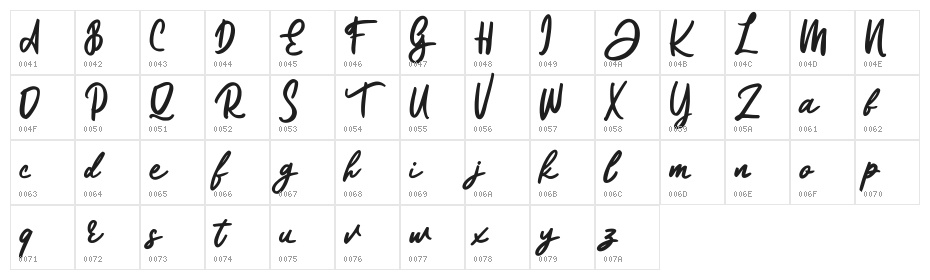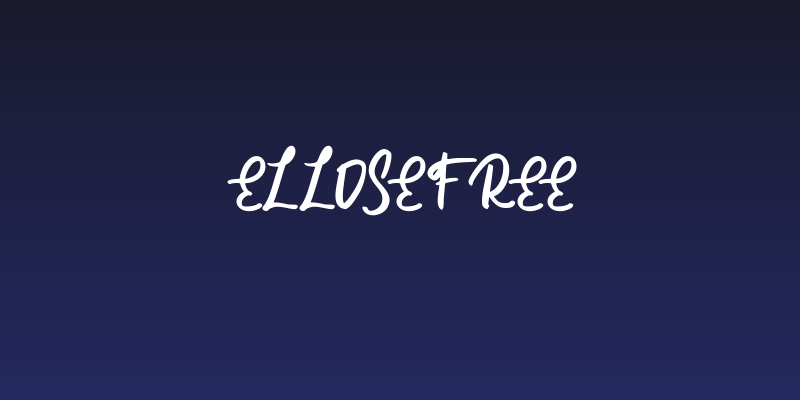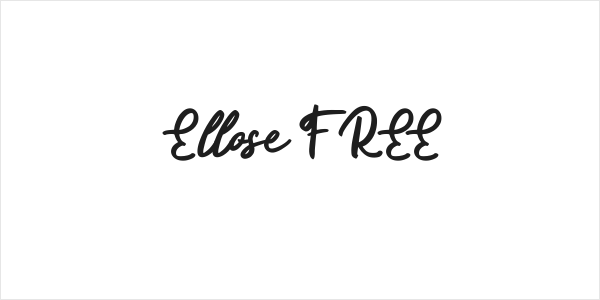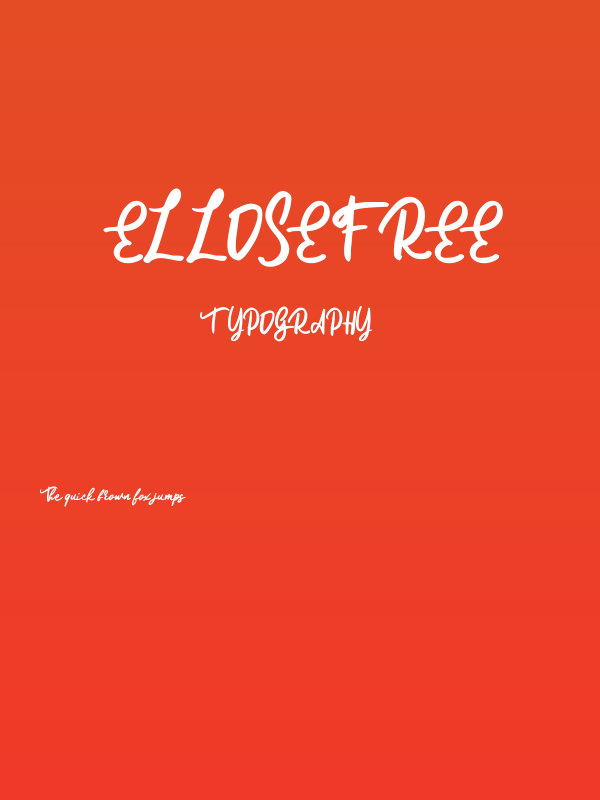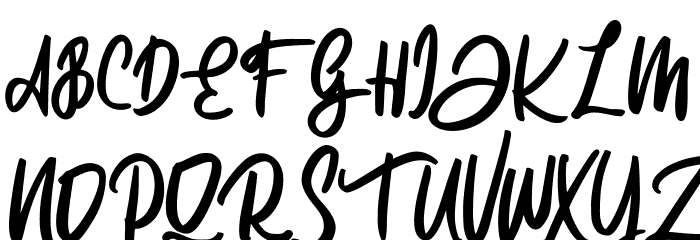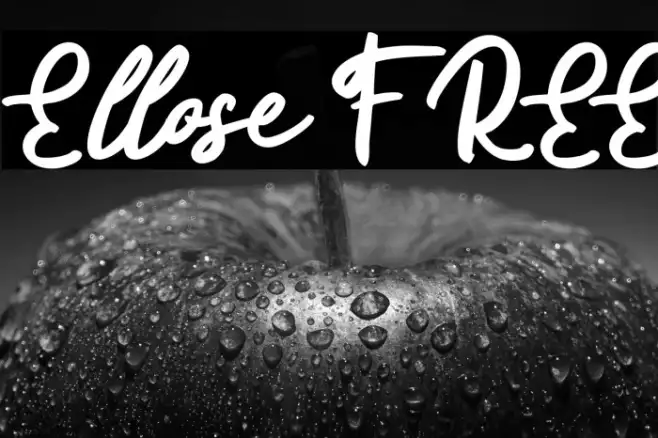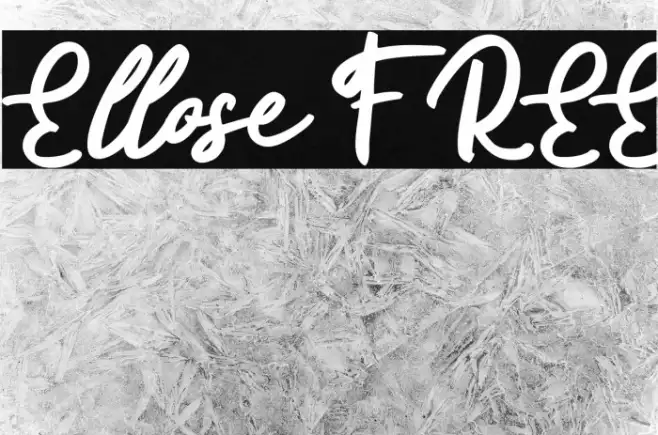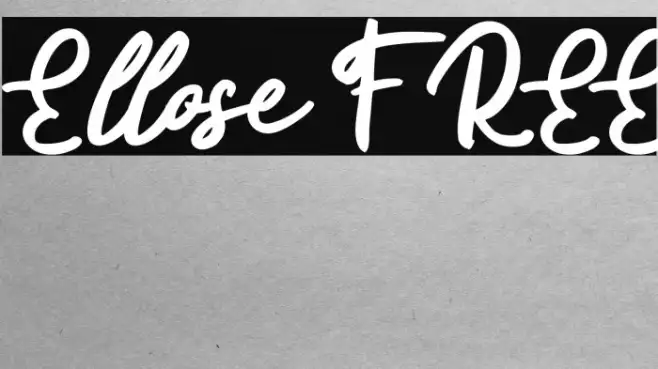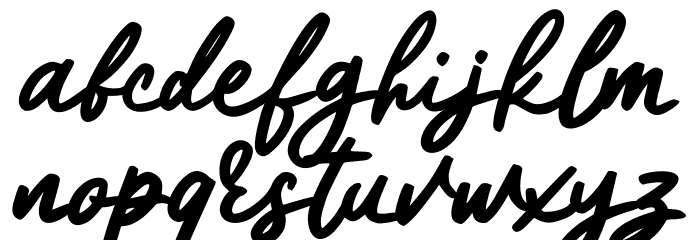
Ellose FREE Font
Ellose FREE Description
This font features a dynamic and expressive handwritten style, characterized by its fluid and flowing letterforms. The strokes are bold and confident, with a slight slant that adds to its energetic appearance. The uppercase and lowercase letters maintain a consistent style, with playful loops and curves that give it a lively personality. The numbers and special characters are equally expressive, ensuring a cohesive look across all text elements. This font is perfect for projects that require a personal touch or a sense of movement and creativity.
| Proposed Projects | Ideal for branding, invitations, greeting cards, and social media graphics. |